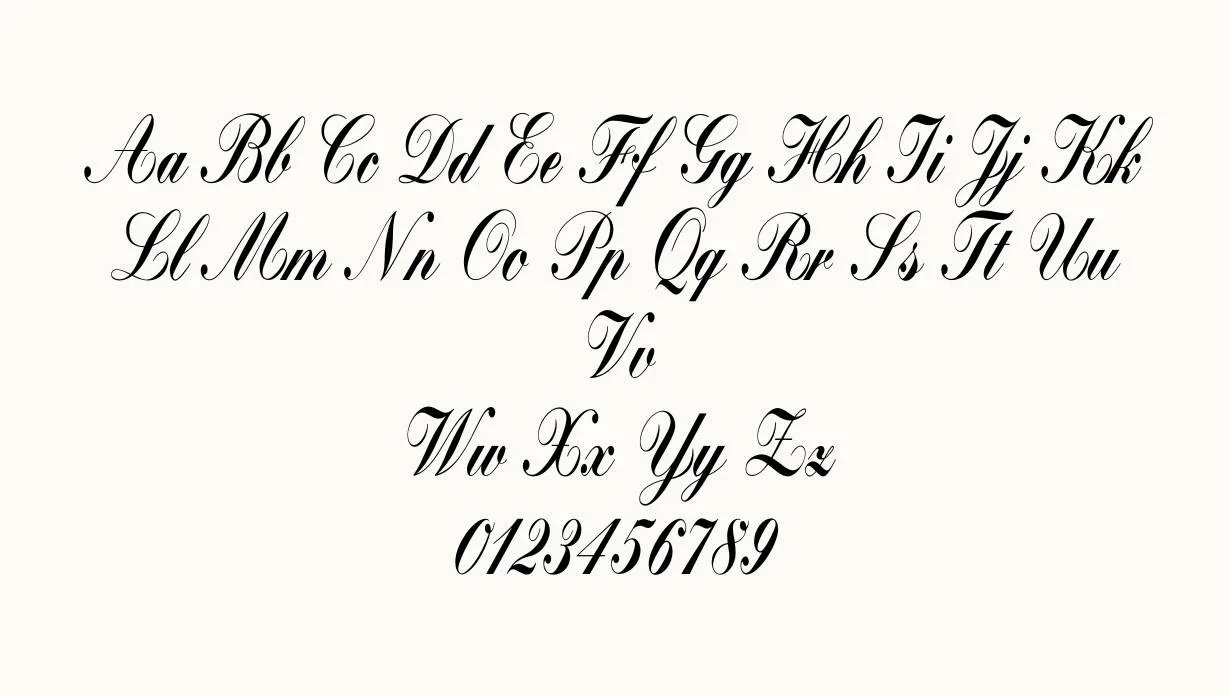
Bolina Font is a very attractive Script font with a calligraphy touch. It was designed by Claude Pelletier. It contains 249 characters and 217 glyphs.
| Name | Bolina Font |
| Designer | Claude Pelletier |